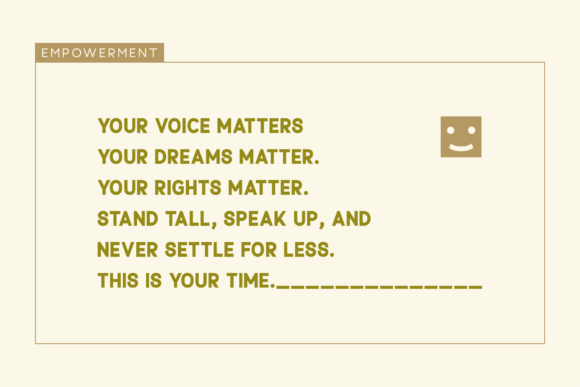
Everlasting Font: The Ultimate Modern Sans Serif Typeface for Bold Statements
In the world of design, typography plays a crucial role in conveying messages, expressing ideas, and creating lasting impressions. Among the numerous fonts available, one typeface stands out for its bold, modern, and authoritative look: Everlasting. This all-caps sans serif font is specifically designed for the modern designer, offering a perfect blend of style, readability, and impact.
Introducing Everlasting – A Modern Sans Serif Typeface
Everlasting is a bold, all-caps sans serif font that exudes strength and authority with its clean lines and minimalist aesthetic. This typeface is perfect for projects that require a sense of professionalism and impact, making it an ideal choice for designers, brands, and agencies. Whether you’re designing a logo, website, or print material, Everlasting makes a statement with its sharp, crisp edges.
Key Features of Everlasting Font
- All-caps design for maximum impact and emphasis on clarity and readability
- Modern, minimalist style with a focus on readability and clean lines
- Bold, clean lines for a confident and professional look
- Ideal for branding, logos, packaging, and digital design
- Perfect for both large-scale headlines and smaller text blocks
The Strength of Everlasting Font
The strong, geometric structure of Everlasting ensures versatility, making it suitable for various design applications, from digital interfaces to high-end branding. The all-caps design emphasizes clarity and readability, making it ideal for headlines, posters, and anywhere you need your message to stand out.
Ideal Design Applications for Everlasting Font
- Branding and logos: Create a lasting impression with a bold and authoritative logo
- Digital design: Enhance your website, mobile app, or social media graphics with a modern and readable font
- Print material: Make a statement with posters, brochures, and business cards
- Packaging design: Stand out on store shelves with a bold and eye-catching font
Who is Everlasting Font for?
Everlasting is perfect for brands, agencies, and designers looking to create a modern, authoritative identity. It’s especially suitable for:
Target Audience for Everlasting Font
- Tech companies: Create a bold and modern identity with Everlasting
- Corporate branding: Enhance your brand’s image with a professional and authoritative font
- Luxury design projects: Add a touch of sophistication and elegance with Everlasting
Why Choose Everlasting Font?
With Everlasting, you can:
Benefits of Using Everlasting Font
- Create a lasting impression with a bold and authoritative font
- Enhance readability with clean lines and a minimalist aesthetic
- Increase versatility with a font suitable for various design applications
- Stand out from the crowd with a modern and unique typeface
Everlasting Font is the ultimate modern sans serif typeface for designers, brands, and agencies looking to make a bold statement. With its clean lines, minimalist aesthetic, and all-caps design, Everlasting exudes strength and authority. Whether you’re designing a logo, website, or print material, Everlasting is the perfect choice for creating a modern, authoritative identity.